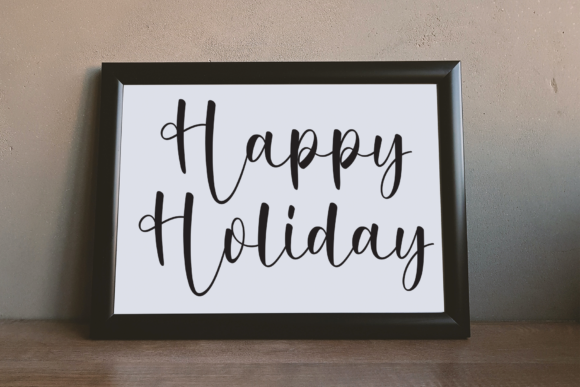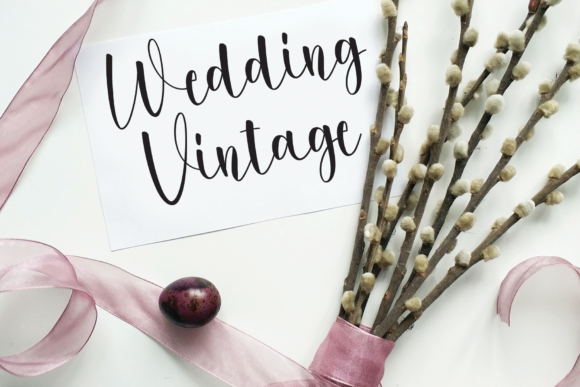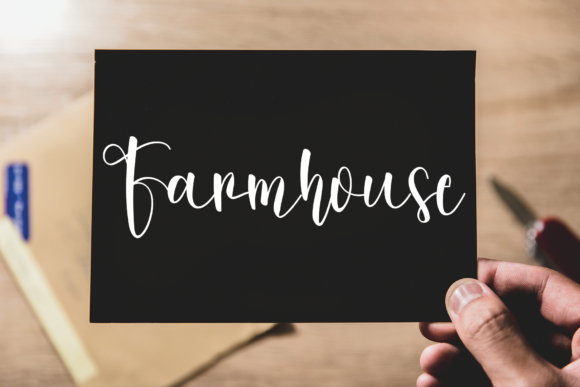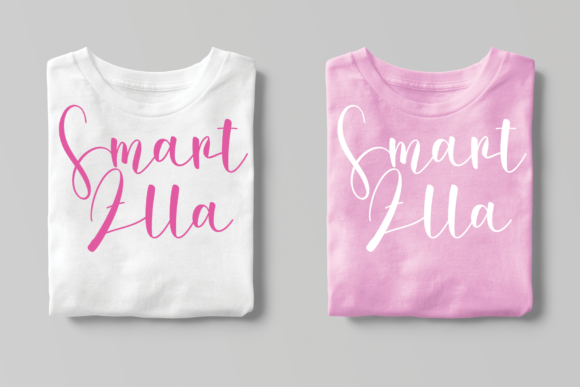
The Perfect Blend of Creativity and Elegance: Back to School Font
As a designer, there’s nothing quite like the thrill of bringing a project to life. You’ve got your concept, your colors, and your vision – but sometimes, it’s that one missing piece that makes it truly special. For me, that piece is the perfect font. And that’s exactly what the Back to School Font delivers – a delicate, elegant, and flowing handwritten font that adds a touch of sophistication to any design.
With its beautiful and well-balanced characters, the Back to School Font is the perfect addition to any project. Whether you’re working on a children’s book, a wedding invitation, or a marketing campaign, this font is sure to bring your design to life. And with its versatility, it’s a valuable tool for designers of all levels – from beginners to seasoned pros.
So why settle for a generic font when you can add a little extra flair with the Back to School Font? This elegant handwriting font is the perfect way to take your designs to the next level.
Key Features of Back to School Font
- Unique Characteristics: The font features a playful, handwritten style with rounded edges and subtle imperfections, giving it a friendly and approachable feel.
Designer Review: “Back to School Font”
Overall, I think “Back to School Font” is a cute and playful font that’s perfect for summer and back to school projects. Here are some things that work well: ✨
- Fun and youthful vibe: The font’s curly and bubbly style gives it a lighthearted and carefree feel that’s great for designs targeting kids or young adults.
- Good legibility: The font is clear and easy to read, even at smaller sizes, making it suitable for body text or short quotes.
- Customization options: The font comes with a range of styles and colors, allowing designers to mix and match to create unique combinations.
- Not suitable for formal designs: The font’s playful style may not be suitable for formal or professional designs, such as business reports or academic papers.
- Limited versatility: While the font is great for summer and back to school projects, it may not be as versatile for other themes or topics.
Overall, I think “Back to School Font” is a fun and creative font that’s perfect for designers looking to add a playful touch to their designs. While it may have some limitations, it’s a great addition to any font library.
Tips for Getting the Most Out of the Back to School Font
Use the Back to School Font for school-related projects, such as invitations, flyers, and posters.
Combine the font with colorful graphics and images to create eye-catching designs.
Experiment with different font sizes and styles to add visual interest to your designs.
The Back to School Font is ideal for:
Creating invitations and announcements for school events.
Designing flyers and posters for school clubs and activities.
Developing educational materials, such as worksheets and handouts.
Alternatives to “Back to School Font” for Designers
Great Vibes is a modern script font ideal for creating a fun and youthful atmosphere. It’s perfect for designing educational materials, promotional posters, or social media graphics. Great Vibes is more elegant and refined compared to Back to School Font, making it suitable for a wider range of designs.